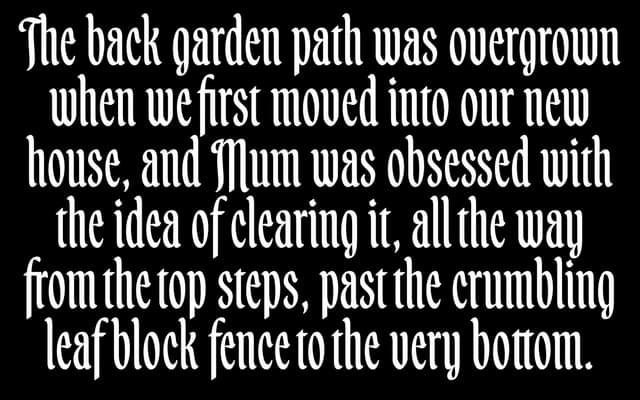
A display serif from Beasts of England, presented through an immersive piece of folkloric short fiction centred on the Green Man.
Talu is sold with an elaborate narrative specimen built around a story of hedge mazes, lost cats and folk horror, which gives a clear sense of its intended atmosphere. The typeface appears to suit literary and editorial applications where a strong, characterful serif is needed. Licensing is offered across individual and multi-user tiers starting at $32.
The specimen is set entirely in a stylised serif face with strong decorative character, suggesting a display-oriented design suited to editorial and atmospheric use rather than extended body text.